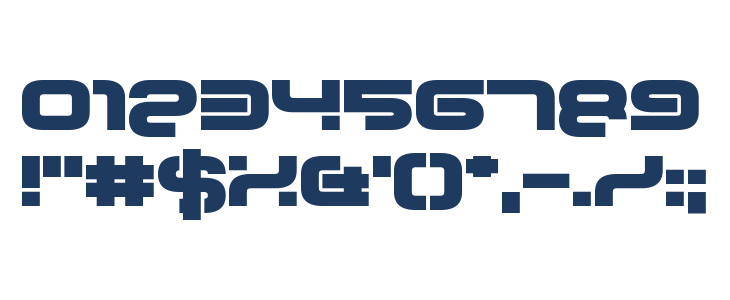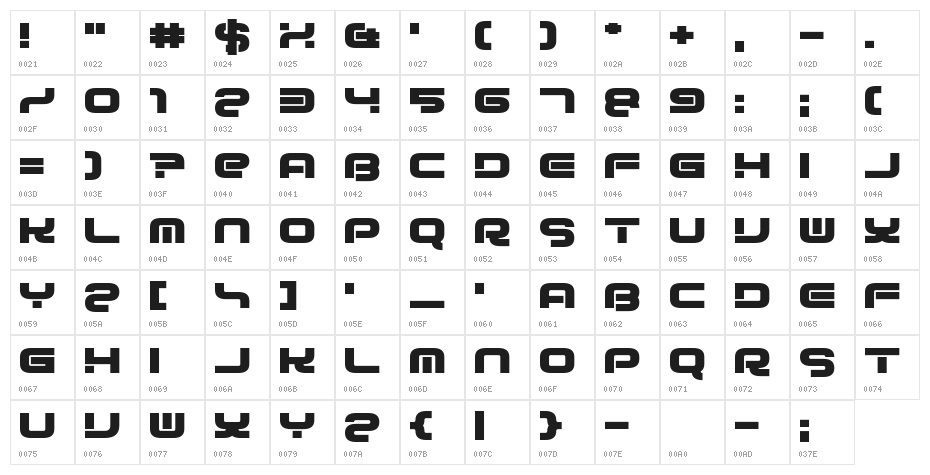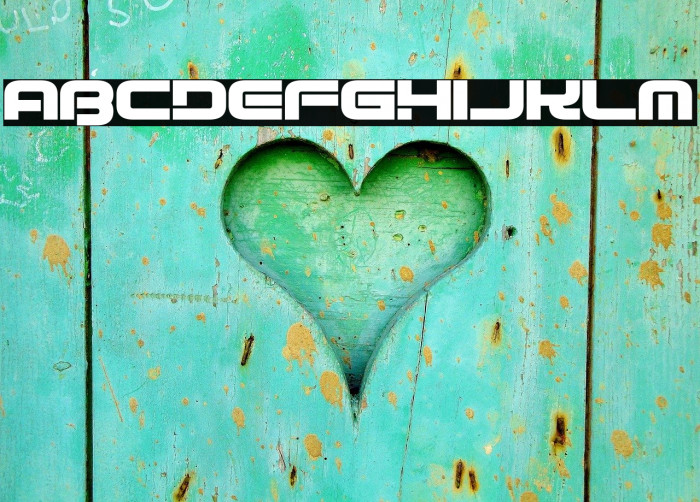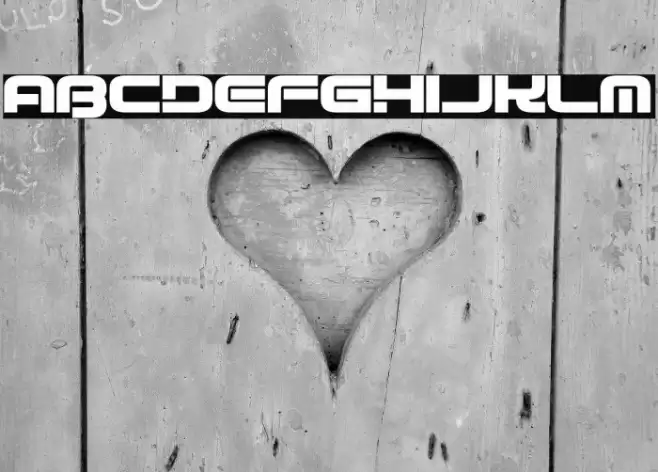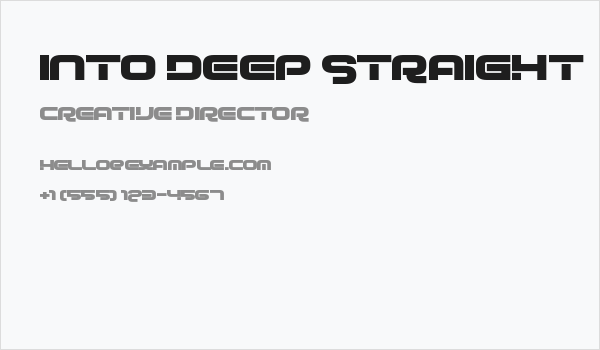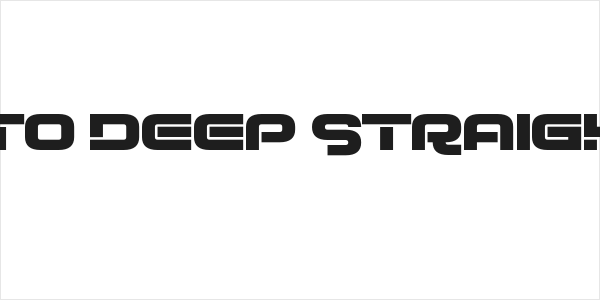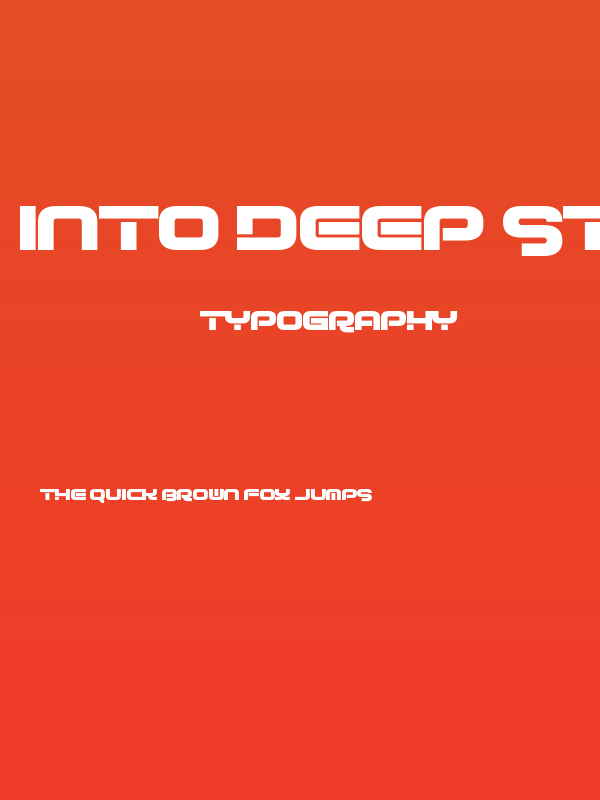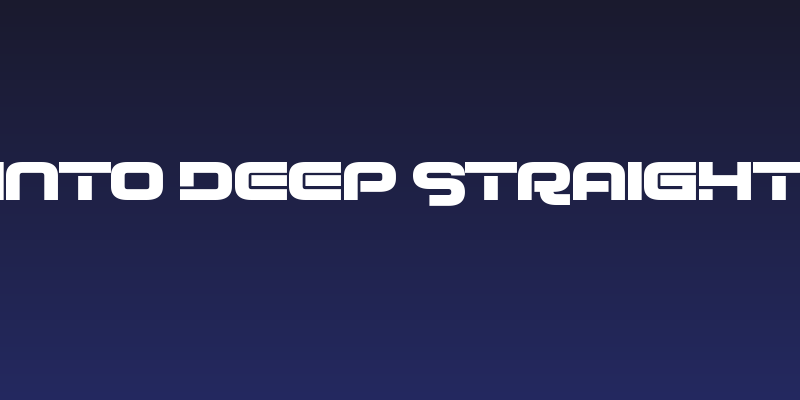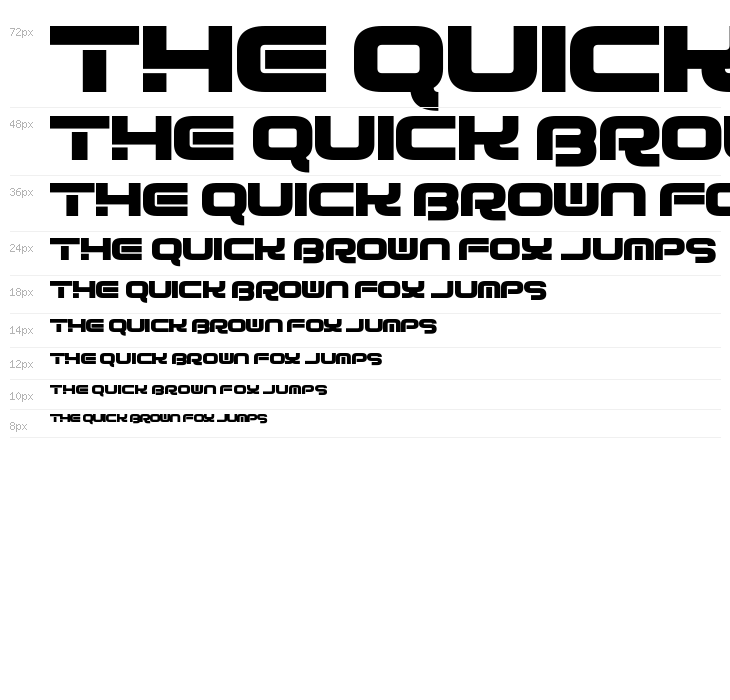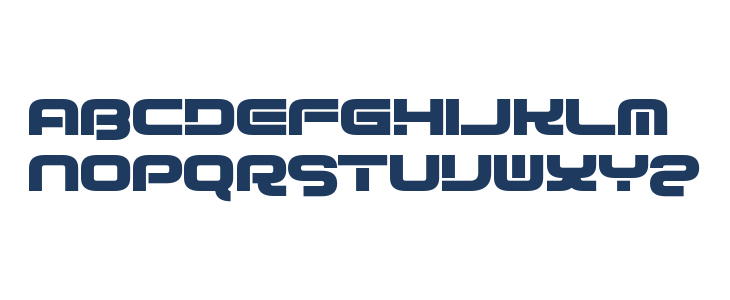
Into Deep Straight Font
Into Deep Straight Description
This font features a bold, futuristic design with a distinctly geometric structure. The characters are constructed with thick, uniform strokes that create a strong visual impact. The uppercase letters are particularly striking, with a blocky, angular appearance that suggests a modern, tech-inspired aesthetic. The lowercase letters maintain this style, offering a cohesive look across both cases. Numbers and special characters are similarly designed, ensuring consistency throughout. The font's overall appearance is clean and minimalistic, making it suitable for projects that require a contemporary and bold statement.